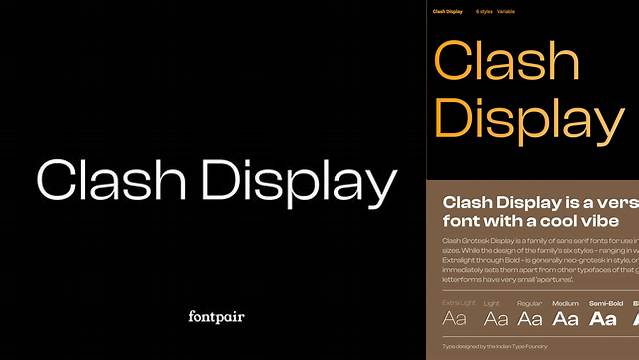
What is Clash Display Font?
Clash Display is a contemporary sans-serif typeface that stands out with its bold, geometric design. It's perfect for headlines, posters, and branding projects that need a touch of modern flair. The font's clean lines and unique character shapes make it highly readable and visually appealing. Whether you're working on a website, a print ad, or a logo, Clash Display can bring a professional and stylish look to your work. Its versatility and aesthetic appeal have made it a favorite among designers worldwide.
The font family typically includes various weights, from light to bold, giving you plenty of options to play with. This range of weights allows you to use Clash Display in different contexts, maintaining consistency while adding visual interest. It's not just about looking good; it's about being functional and adaptable. With its distinct personality and broad usability, Clash Display is a valuable addition to any designer's toolkit. When you choose to download clash display font free, you're unlocking a world of creative possibilities that can elevate your projects to new heights.
Why Choose Clash Display for Your Projects?
Choosing the right font can make or break a design, and Clash Display offers several compelling reasons to be your go-to choice. First off, its modern and clean aesthetic can instantly elevate any project. Whether you're designing a website, a poster, or a logo, the font brings a contemporary vibe that's hard to ignore. Its geometric shapes and balanced proportions make it highly readable, ensuring your message gets across clearly. Clash Display is also versatile, fitting seamlessly into various design styles and industries.
Another key benefit is its availability in multiple weights. This flexibility allows you to create visual hierarchy and maintain consistency throughout your design. You can use a heavier weight for headlines and a lighter weight for body text, ensuring a cohesive look. Additionally, many designers appreciate that Clash Display is often available for free or at a reasonable cost, making it accessible for both personal and commercial projects. Ultimately, download clash display font free means investing in a font that combines style, functionality, and affordability, making it a smart choice for any design project. So, if you're looking for a font that delivers both aesthetic appeal and practical utility, Clash Display is definitely worth considering.
Clash Display Font: Key Features and Characteristics
When it comes to font selection, understanding the key features and characteristics is crucial. Clash Display stands out with its unique combination of modern design and practical functionality. One of its defining features is its geometric structure, which gives it a clean and contemporary look. The font's letterforms are carefully crafted to ensure high readability, making it suitable for a wide range of applications. Its balanced proportions and clean lines contribute to a professional and polished appearance, whether used in headlines or body text.
Another notable characteristic is the availability of multiple weights. This range allows designers to create visual hierarchy and maintain consistency throughout a project. From bold headlines to light body copy, Clash Display offers the flexibility needed to adapt to different design needs. Additionally, the font often includes a variety of glyphs and characters, expanding its versatility and usability. The overall aesthetic of Clash Display is modern yet timeless, making it a reliable choice for projects that require a touch of sophistication. When you download clash display font free, you're gaining access to a typeface that is not only visually appealing but also highly functional and adaptable. Therefore, knowing these features can help you leverage the font's strengths effectively in your design work.